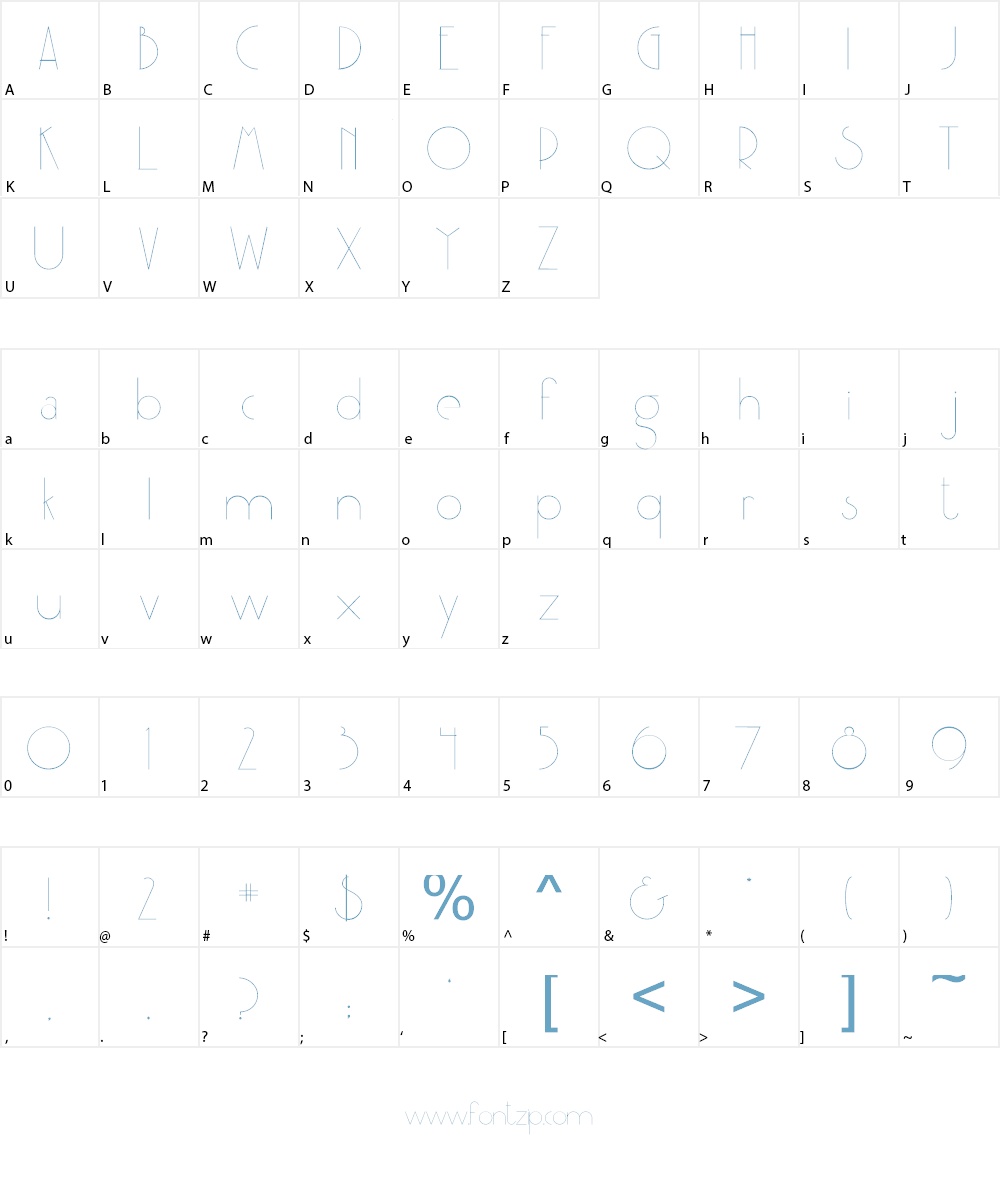
This font was created for a final in a typography class. Party at Gatsby's is super thin, however legible and quite clean. It is free for personal use! If you would like to use it commercially, that is totally fine with me! Just send me a small donation through paypal at the link above